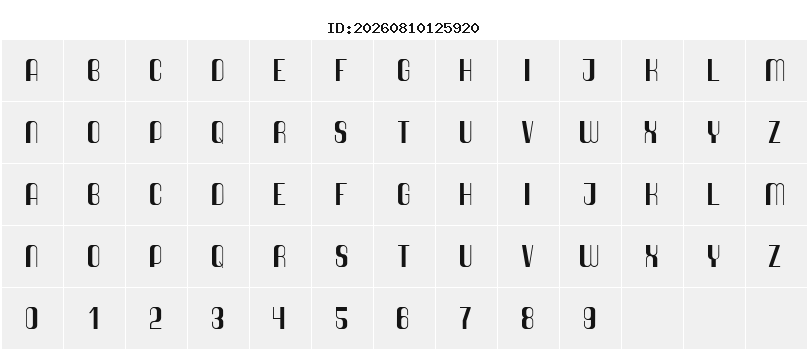
Quimbie Preview
• Font Name: Quimbie
• Full Font Name: Quimbie
• Designer: Peter Wiegel
• Manufacturer: CAT - Ing. Peter Wiegel. Wolgast
About Quimbie.ttf
Quimbie.ttf is a modern, elegant sans-serif font designed for ultimate readability and visual harmony. Perfect for branding, headlines, web design, and print materials.